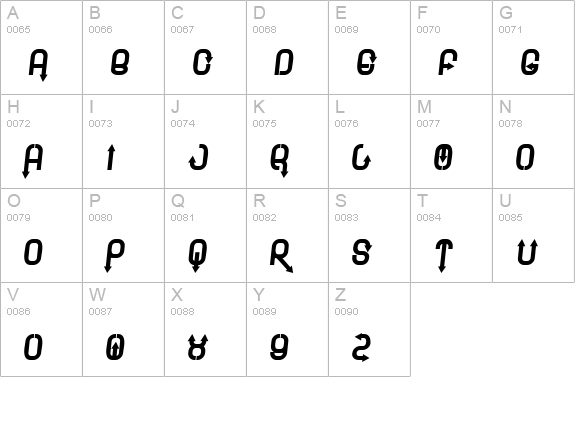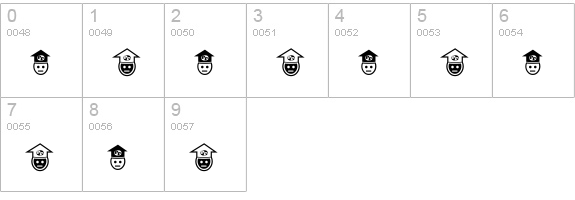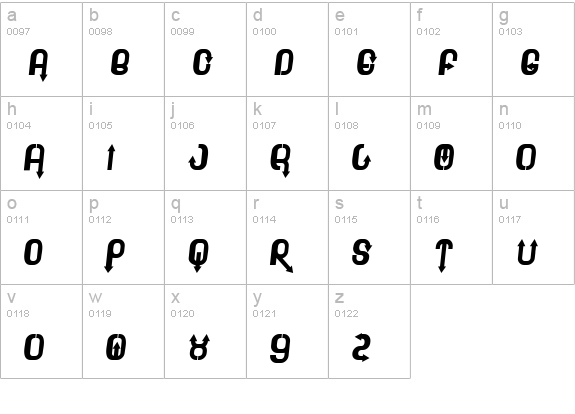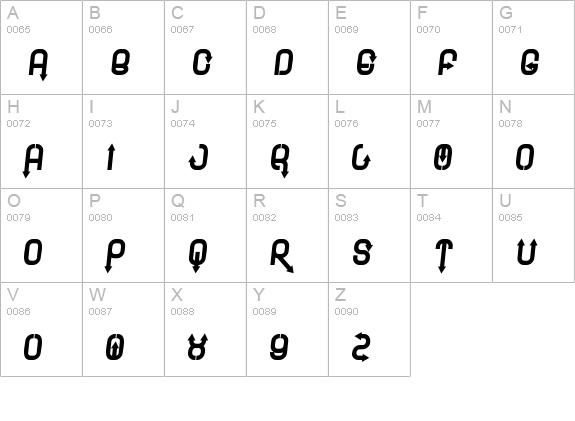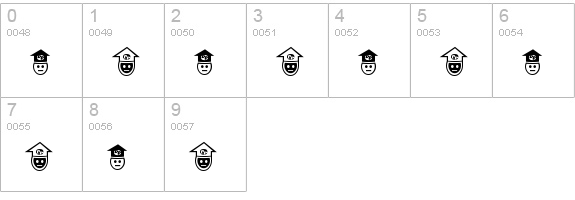
Plee Font Details
Introducing Plee font, a modern and elegant typeface that is sure to enhance your designs with its sleek and sophisticated appearance. Plee font offers a perfect balance between classic and contemporary styles, making it suitable for a wide range of design projects. This versatile font features clean lines and smooth curves, making it easy to read and visually appealing. Whether you're working on a logo, branding materials, invitations, or any other creative project, Plee font will add a touch of elegance and professionalism. The best part? Plee font is available for free download at FontsMarket.com, allowing you to access this high-quality typeface without any cost. Don't miss out on the opportunity to enhance your designs with Plee font today!